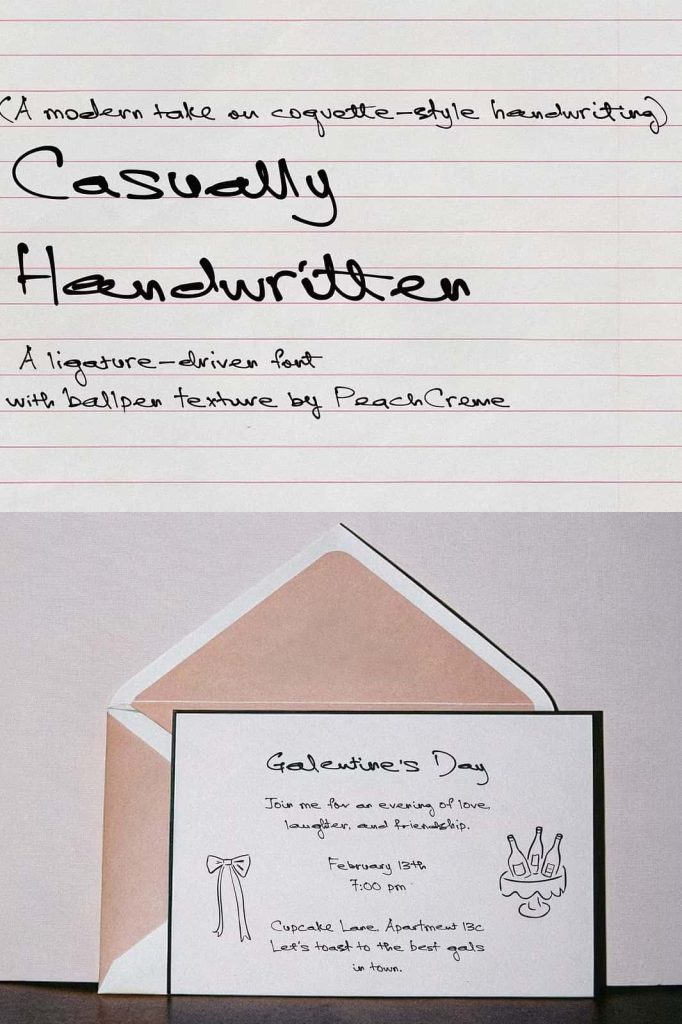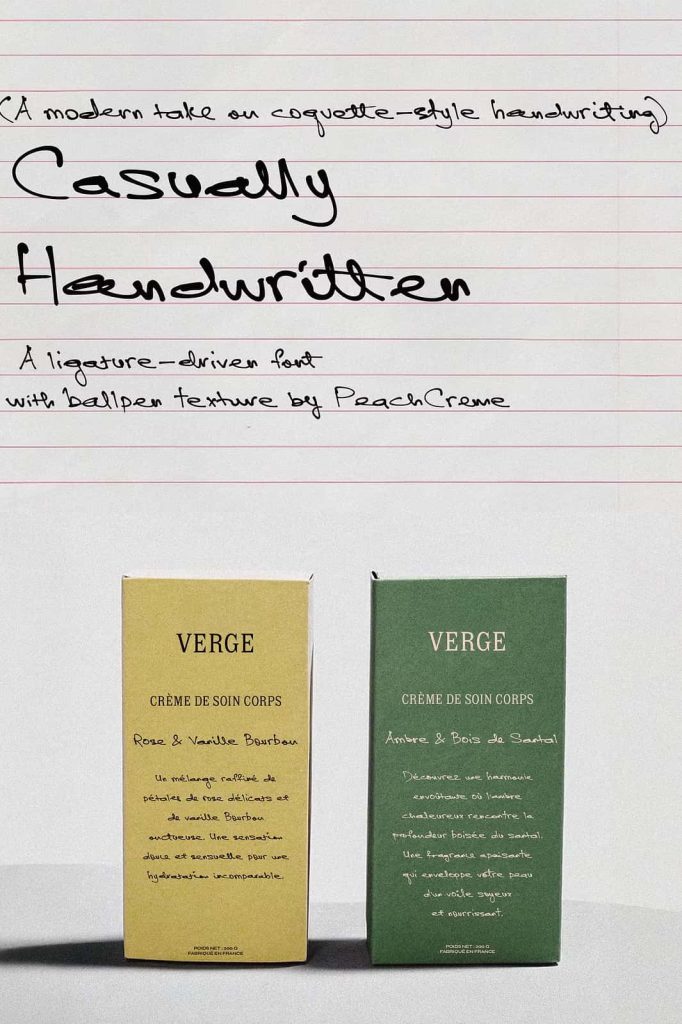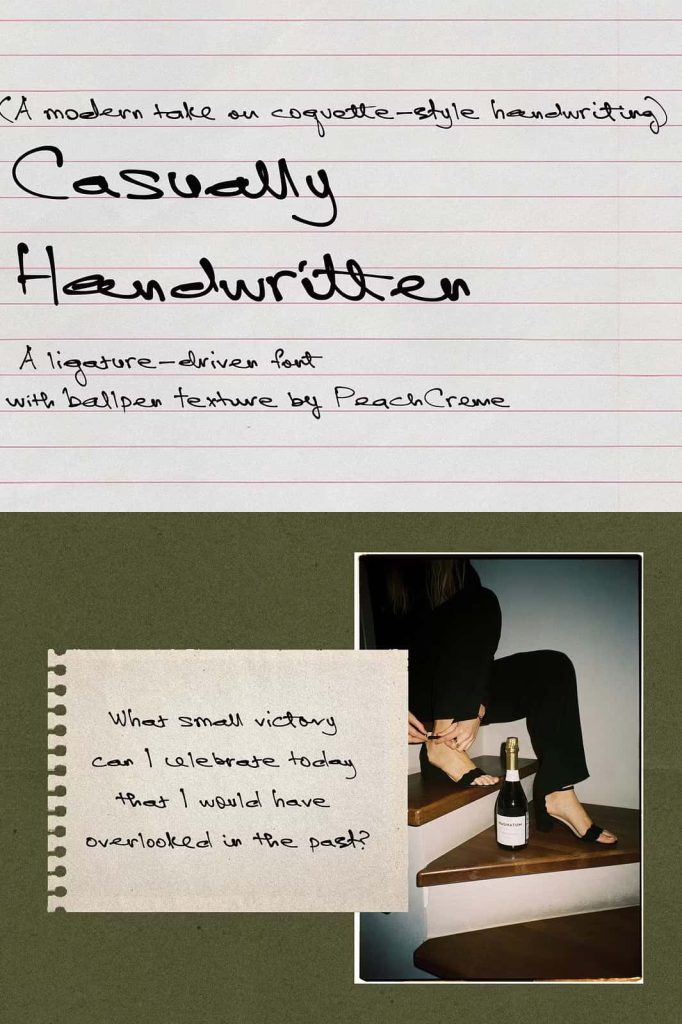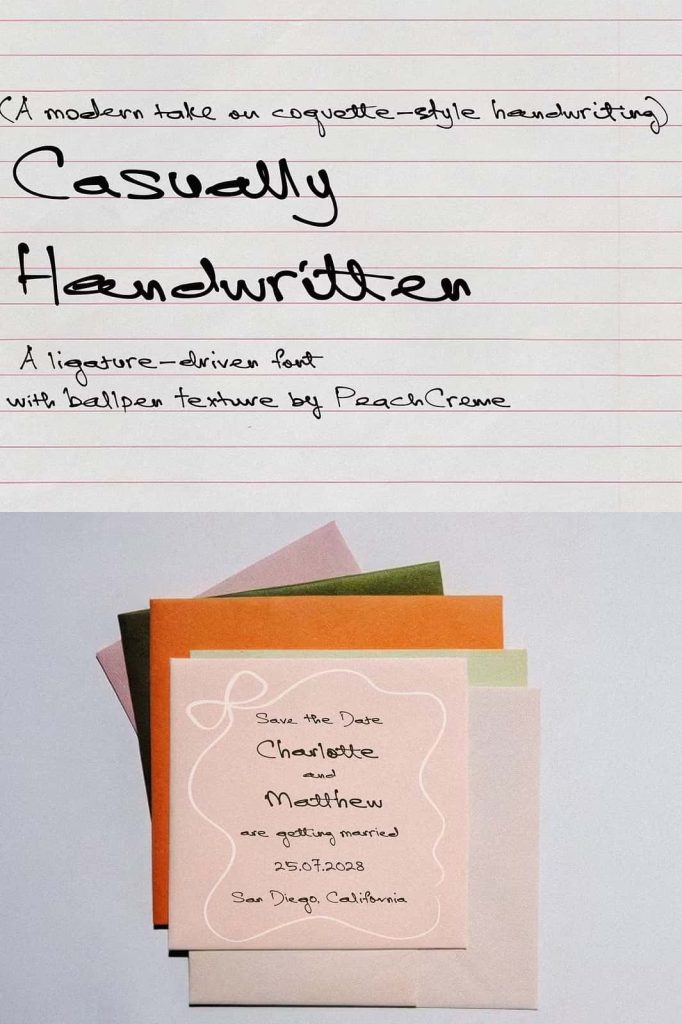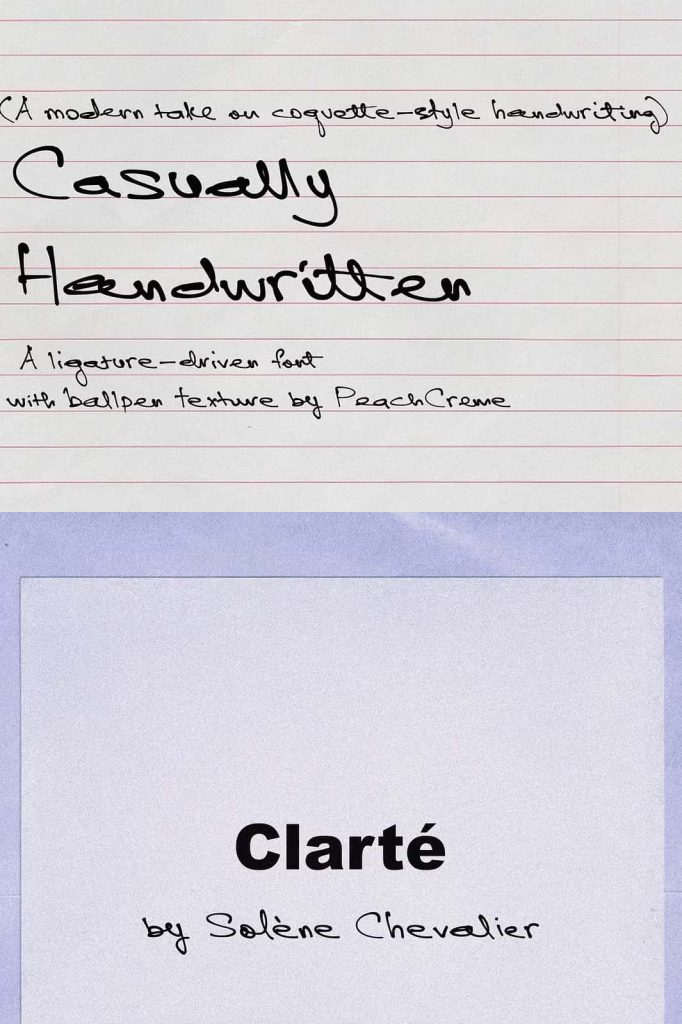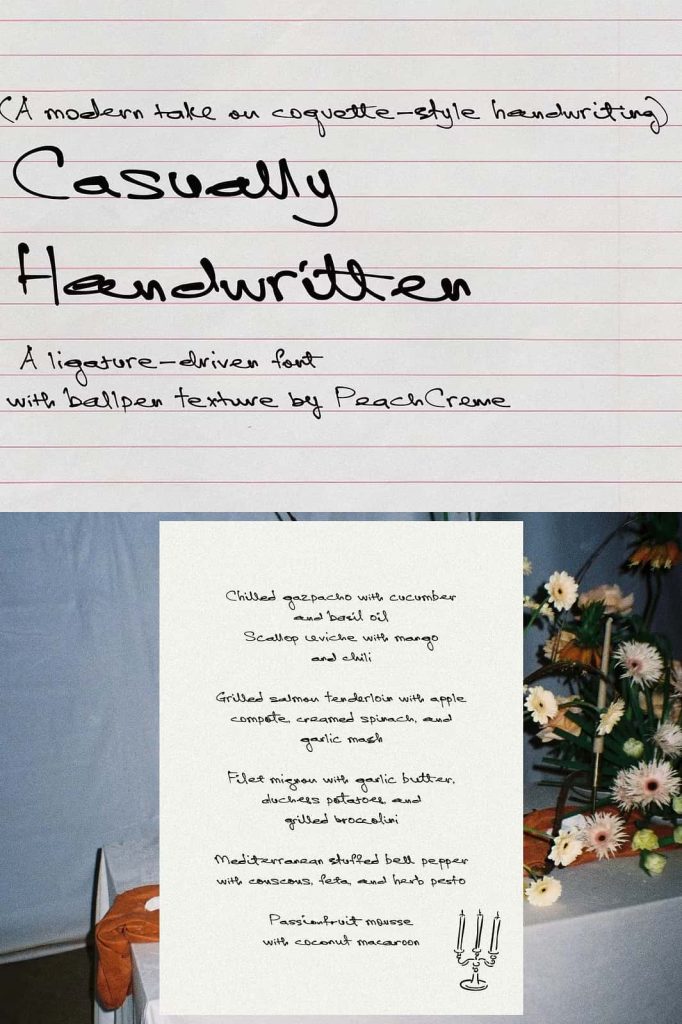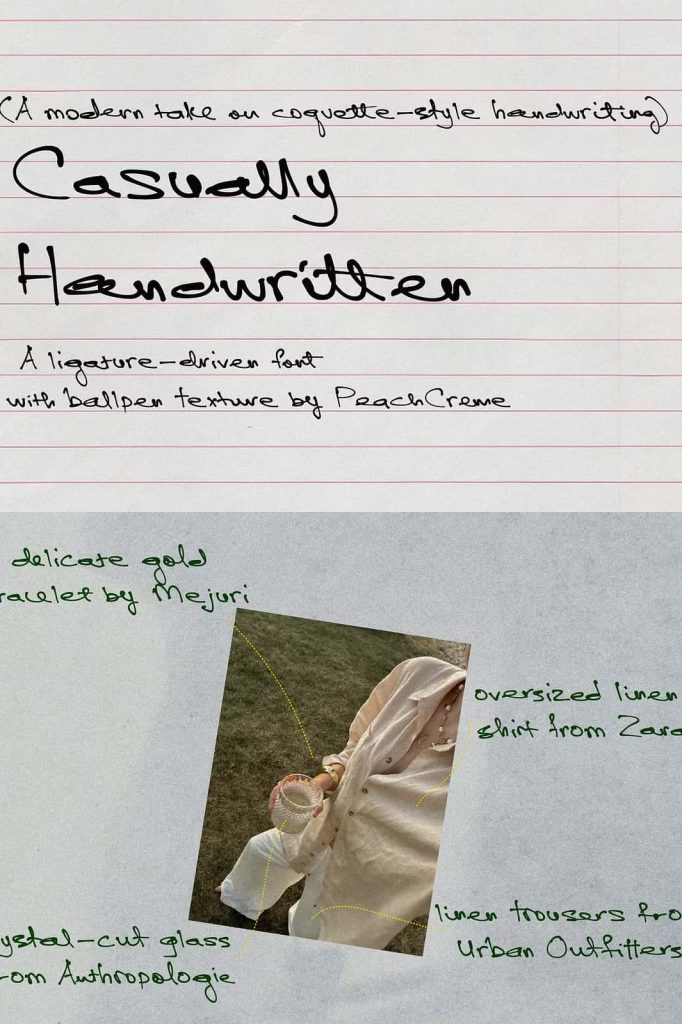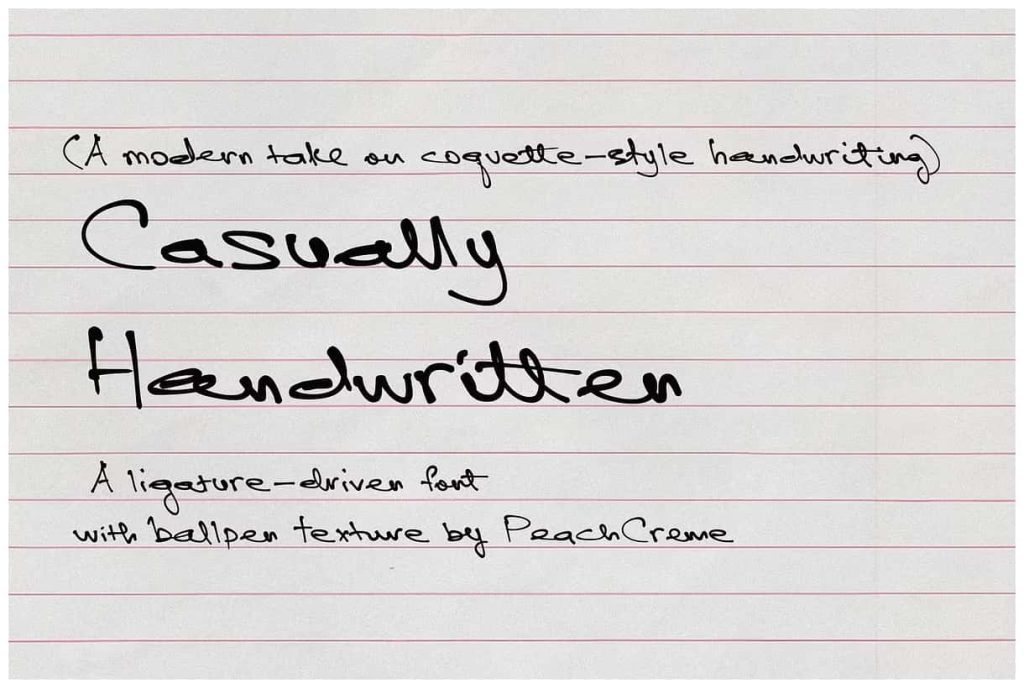
Casually Handwritten by PeachCremeleastedFebruary 11, 2025Fonts “Casually Handwritten” is a font born from real, natural handwriting, celebrating the charm of imperfection. Download